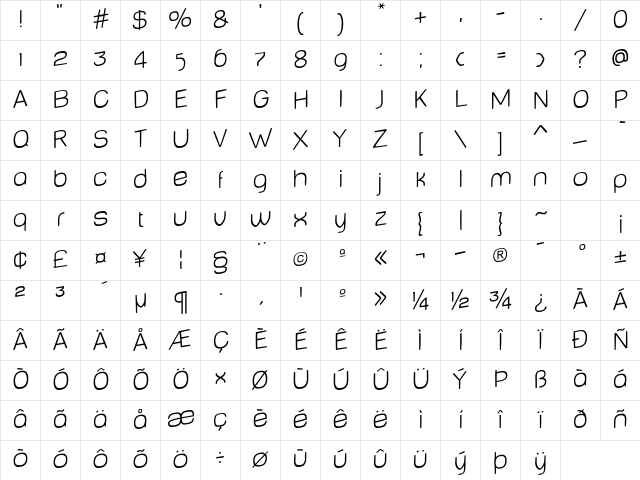
Complete Baby MineThinJumping glyph index. Displaying only characters natively supported by Baby MineThinJumping font.
Baby is a composed and adaptable typeface that performs quietly and consistently across a wide range of design contexts. Its slender proportions lend an understated elegance to any composition.